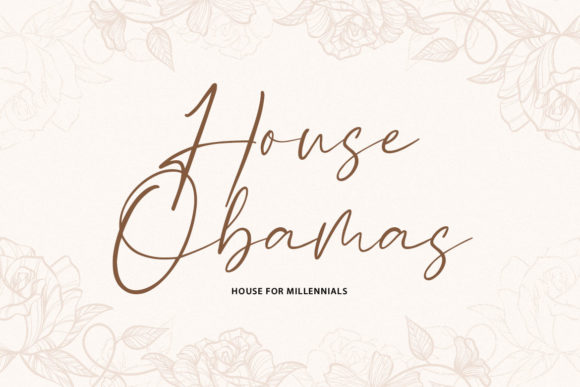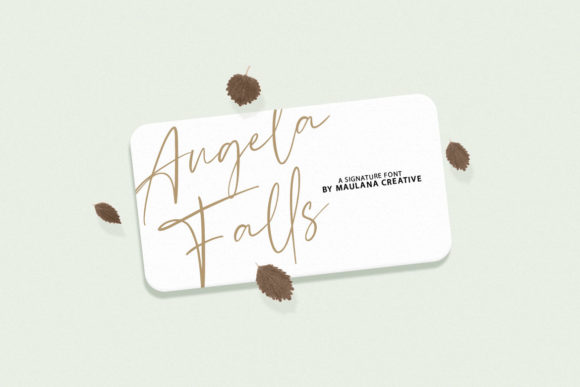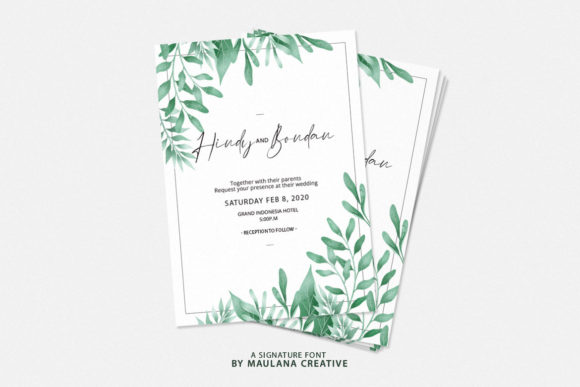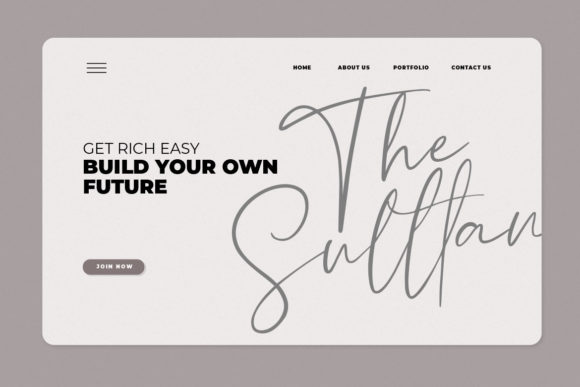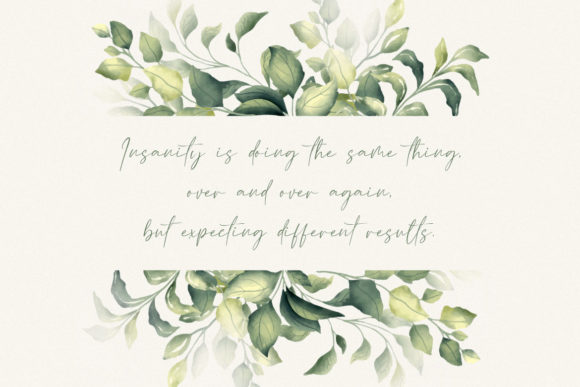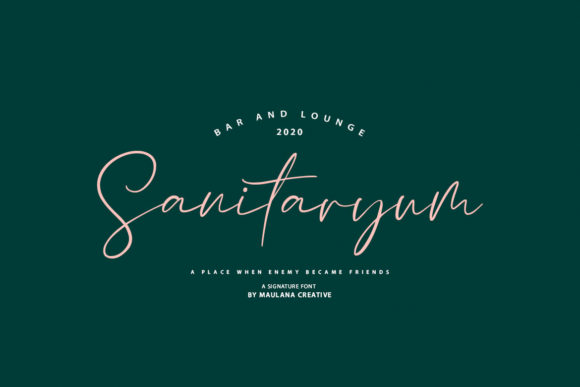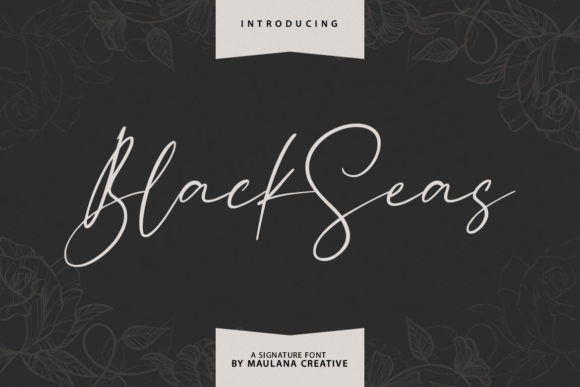
Introducing Blackseas Font: Elevate Your Designs with a Touch of Modern Elegance
Are you on the lookout for a font that can add a dash of sophistication and a handcrafted feel to your designs? Look no further than Blackseas Font. This stunning script font is designed to bring a modern charm to your projects, making them stand out with an authentic and elegant appeal. In this article, we’ll dive deep into the features, benefits, and uses of Blackseas Font, and explore how it can become an indispensable part of your design toolkit.
The Essence of Blackseas Font
Blackseas is a gorgeous and modern script font that will give your designs a handcrafted and authentic feel. Its modern charm is undeniable, making it perfect for designers and crafters who aim to create unique and captivating content. Whether you’re working on a branding project, crafting a beautiful wedding invitation, or designing a logo that tells a story, Blackseas Font is your go-to choice for adding a personal touch.
Key Features of Blackseas Font
- Modern Script Style: Blackseas boasts a contemporary script style that is both elegant and versatile. Its fluid strokes and beautiful ligatures give it a natural, hand-written appearance.
- Handcrafted Feel: The font’s design elements are meticulously crafted to mimic the imperfections and uniqueness of handwriting, providing your designs with a personal and authentic touch.
- High Versatility: Blackseas Font can be used across various design projects, from digital content like social media graphics and website headers to print materials such as brochures, posters, and business cards.
- Easy to Read: Despite its script nature, Blackseas maintains a high level of readability, making it suitable for both headings and body text.
Blackseas Font offers numerous benefits for designers and crafters looking to elevate their work:
- Time-Saving: With its comprehensive set of characters and ligatures, Blackseas Font saves you time in creating custom text. You can achieve professional-looking results without the need for extensive editing.
- Consistency: Using a unique and consistent font across your projects helps in building a strong brand identity. Blackseas Font can become a signature element of your brand’s visual aesthetic.
- Inspiration: The font’s distinctive style can serve as a source of inspiration, encouraging creativity and innovation in your design process.
How to Use Blackseas Font Effectively
To make the most of Blackseas Font, consider the following tips:
- Pair it Wisely: Combine Blackseas with complementary fonts to create visual interest. A sans-serif font for body text can provide a nice contrast to the script elegance of Blackseas.
- Play with Sizes: Utilize different font sizes to create a hierarchy of information. Larger sizes for headings can draw attention, while smaller sizes can ensure readability.
- Adjust Letter Spacing: Tweaking the letter spacing (tracking) can enhance the overall look of your text, making it more airy or compact as needed.
Blackseas Font is more than just a script font; it’s a design tool that can transform your projects with its modern charm and handcrafted feel. Whether you’re a professional designer or a crafter with a passion for creating beautiful content, Blackseas offers the versatility and elegance you need. By incorporating Blackseas Font into your design arsenal, you’ll be well on your way to producing captivating and memorable work that stands out in any creative field.
So, fall in love with the modern charm of Blackseas Font and let it guide your creative journey. Discover the difference it can make in your designs today!